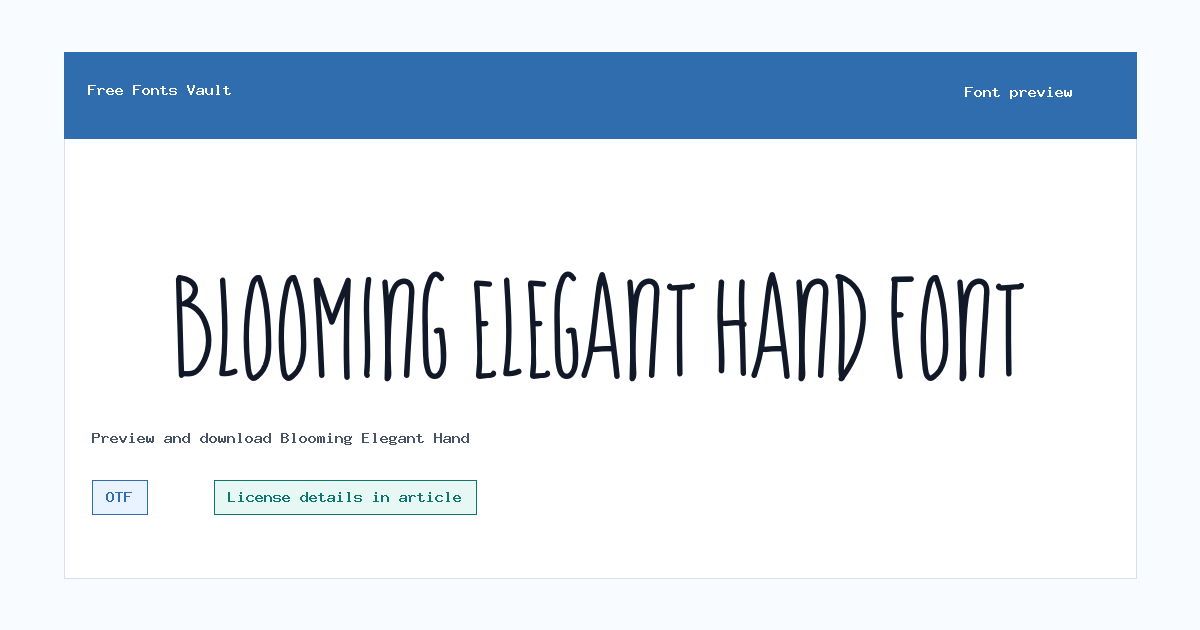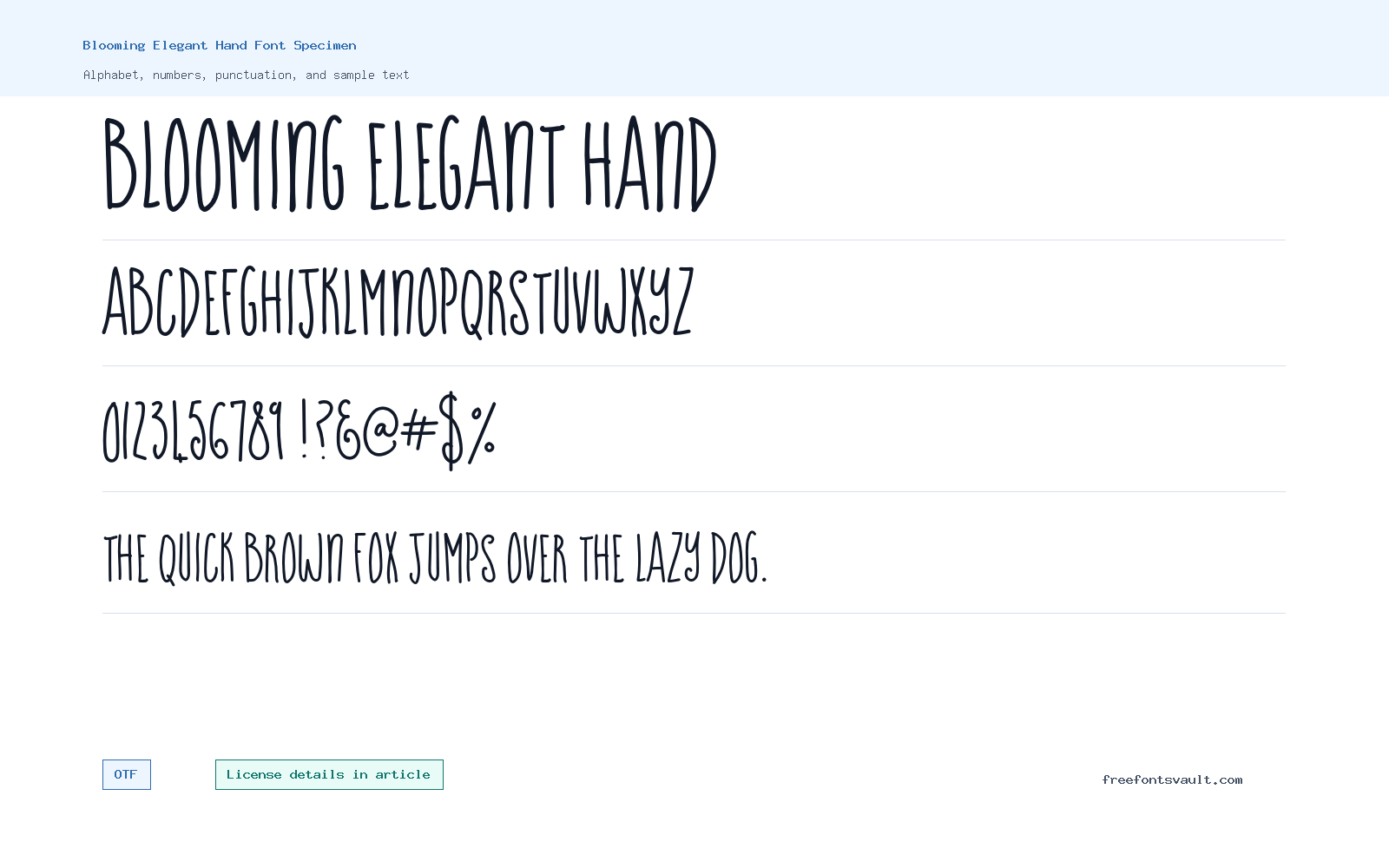
Blooming Elegant Hand
- Designer Nicky Laatz
- Foundry Nicky Laatz
Blooming Elegant Hand font.
Blooming Elegant Hand is a handwritten display font with a soft, personal feel. It works best when you want text to look more casual, warm, and crafted by hand.
About Blooming Elegant Hand
Use this font for short pieces of copy where personality matters more than dense readability. It can suit greeting card text, social graphics, boutique-style branding drafts, packaging mockups, invitation headings, and decorative website accents. For clearer layouts, pair it with a plain serif or sans serif for body text, and keep Blooming Elegant Hand for the words you want visitors to notice first.
Blooming Elegant Hand is most useful when the design needs a warm handwritten accent rather than a perfectly neutral type choice. It can make a name, phrase, or short message feel more personal, especially in lifestyle, boutique, stationery, and celebration-themed layouts.
Keep the surrounding layout simple. A handwritten display font usually works better with generous spacing, soft contrast, and a supporting text face that handles the practical information. Use the preview to compare lowercase words, capitals, and punctuation before choosing it for final artwork.
- Handwritten display style for short, expressive text
- Elegant handwritten texture for names, short phrases, and decorative headings
- Single regular style, so layout, color, and size control most of the visual emphasis
- Invitations, cards, and short quotes
- Logo drafts, labels, social posts, and decorative headings
- Stationery, boutique branding drafts, wedding graphics, greeting cards, and social quote designs
- Designs where a softer handmade tone is more important than compact paragraph readability
Blooming Elegant Hand is credited to Nicky Laatz, with the foundry also listed as Nicky Laatz.
Test the font with your exact wording before using it in a finished design. Handwritten fonts can look beautiful in headings but may lose clarity in small sizes, all-caps settings, or long paragraphs.
What type of font is Blooming Elegant Hand?
Blooming Elegant Hand is a handwritten-style display font. It is best used for short text such as titles, names, quotes, labels, and decorative headings.
Who designed Blooming Elegant Hand?
The font is credited to Nicky Laatz.
Is Blooming Elegant Hand good for body text?
It is better for short display text. For paragraphs, pair it with a simpler font that is easier to read at smaller sizes.
How do I keep Blooming Elegant Hand readable?
Use it at a generous size, keep phrases short, and avoid crowded paragraphs. Pair it with a clean serif or sans serif for addresses, descriptions, prices, and longer notes.